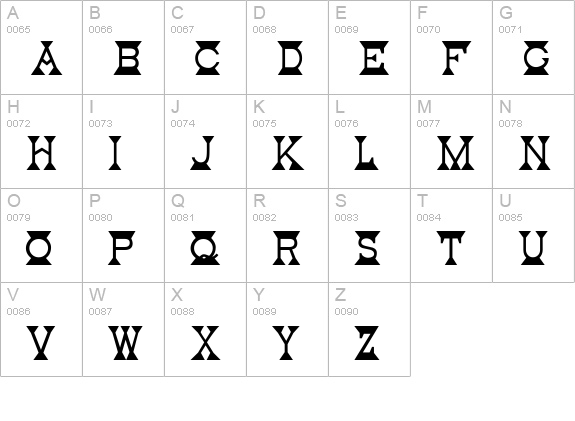
Mantel Font Details
Mantel font is a stunning and versatile typeface that will elevate any design project to new heights. With its elegant curves and clean lines, this font exudes sophistication and professionalism. Whether you're creating a logo, designing a website, or crafting a stylish invitation, Mantel font will bring a touch of class to your work. What sets Mantel font apart is not only its aesthetic appeal but also its accessibility. It is freely available to download at FontsMarket.com, making it an excellent choice for designers on a budget. Say goodbye to expensive licensing fees and hello to a high-quality, free font that doesn't compromise on style. With multiple weights and styles to choose from, Mantel font offers endless possibilities. From bold and dramatic headlines to sleek and minimalist body text, this font can adapt to any design concept seamlessly. Its versatility makes it suitable for a wide range of projects, whether you're designing for print or digital platforms. The attention to detail in Mantel font is evident in its carefully crafted letterforms. Each character has been meticulously designed to ensure legibility and visual harmony. The result is a font that is not only aesthetically pleasing but also easy to read, even at smaller sizes. Mantel font is perfect for adding a touch of sophistication to your branding, advertising, or editorial projects. Its timeless elegance and modern sensibility make it a go-to choice for designers looking to create a lasting impression. And with its availability as a free download at FontsMarket.com, there's no reason not to give this stunning font a try. Elevate your designs with Mantel font and experience the power of elegance and accessibility combined.